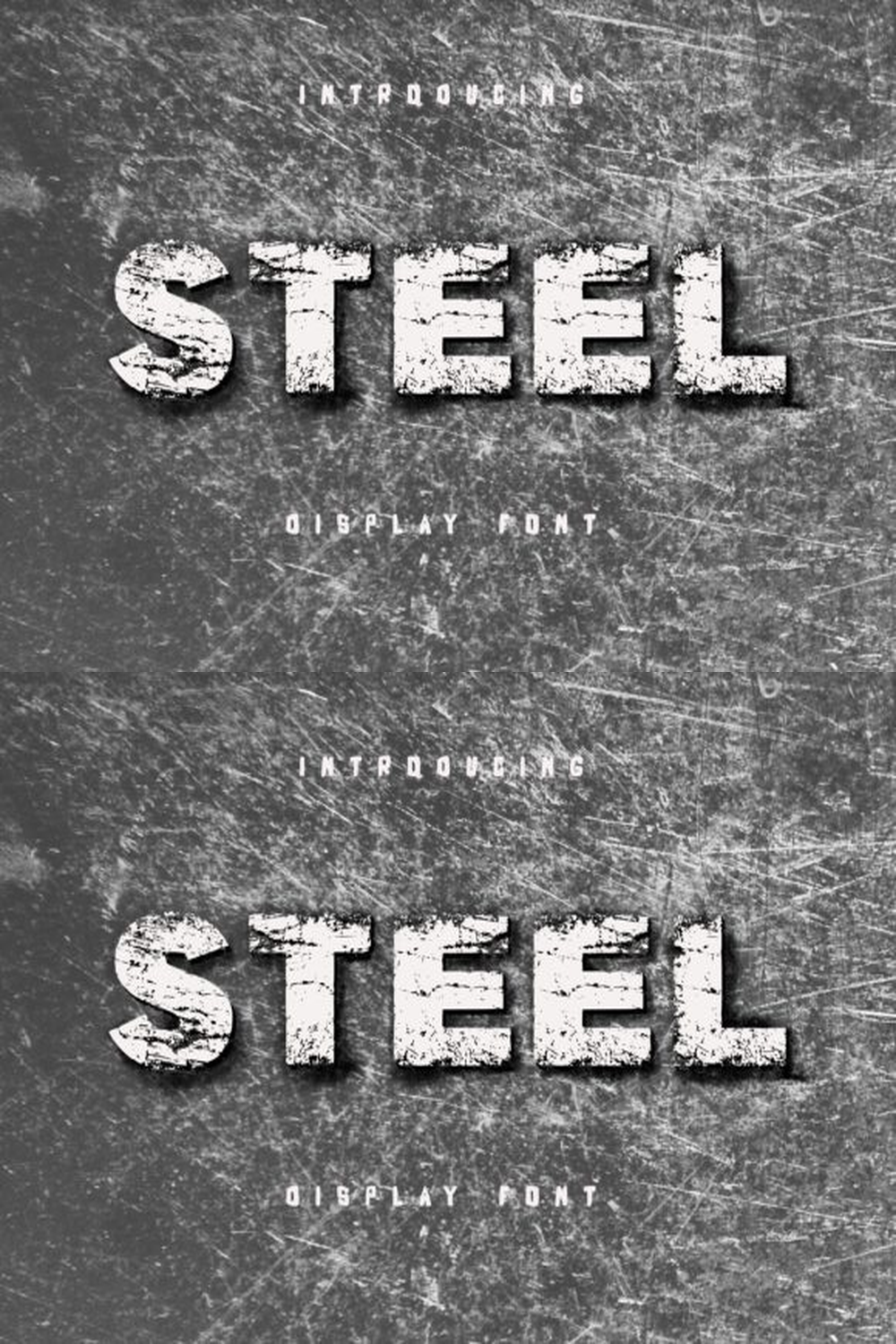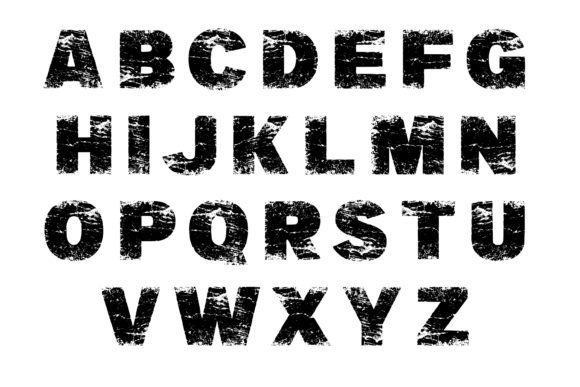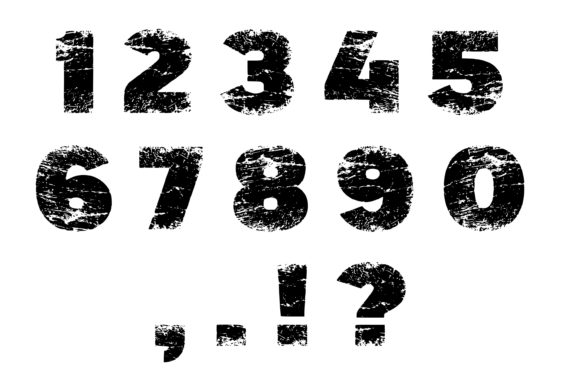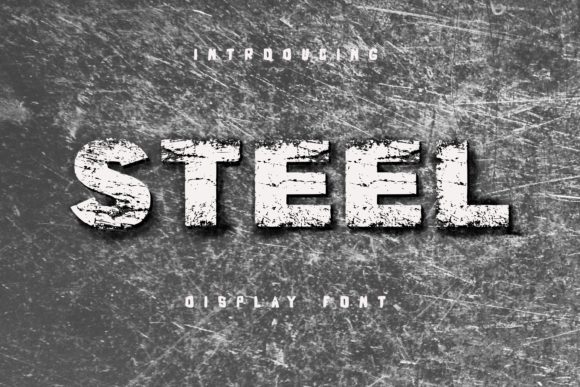
Steel Font
About the Steel Font
Step up your design game with Steel Font, a font that exudes confidence and style. Steel is a cool, rough textured display font. It is perfect for posters designs, stickers designs, t-shirt designs and a lot more. Just use it for your artwork; It will makes your designs look outstanding.